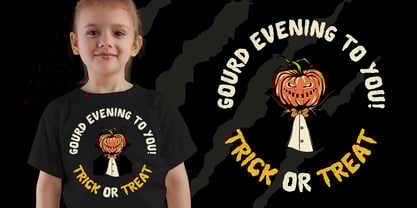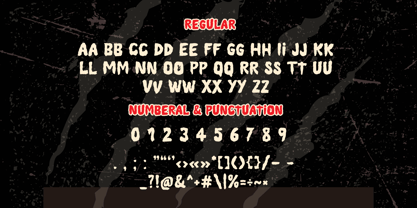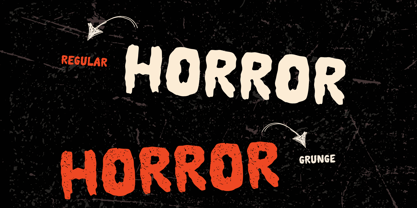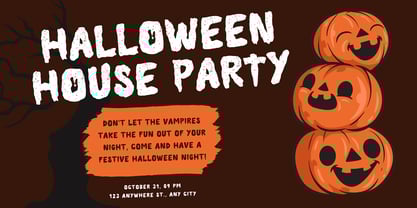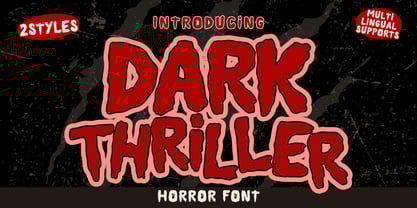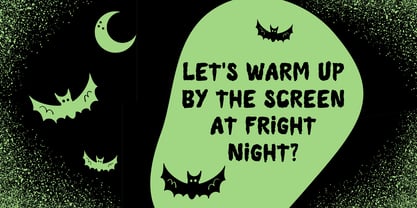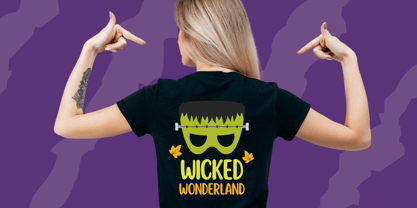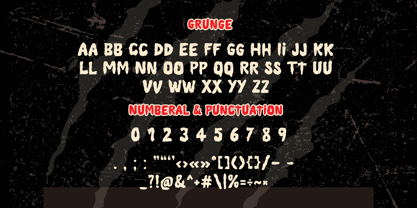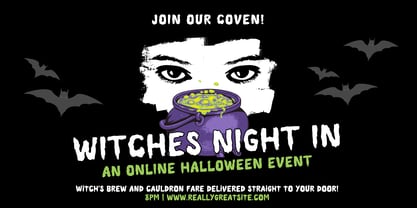
Horror Evil
by Brown Cupple Typeface
The Horror Evil Font Family was designed by Nattha​ Potchanad​ and published by Brown Cupple Typeface. Horror Evil contains 2 styles and family package options.
Dark Thriller is a Halloween font. It embodies playfulness and authenticity and is the perfect choice for all your favorite projects such as blog posts, logos, branding, ads, invitations, greeting cards, planners, photo albums, decorations, and more. Add it to any of your designs, and enjoy the results!